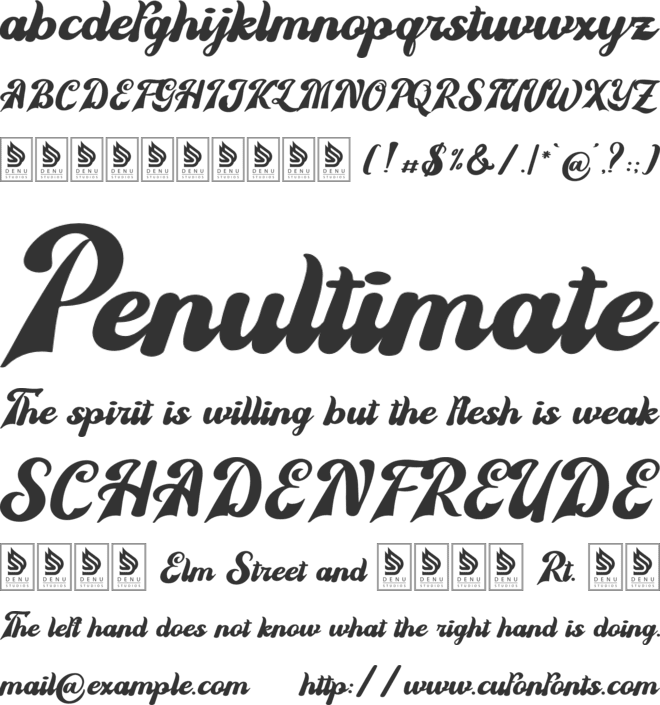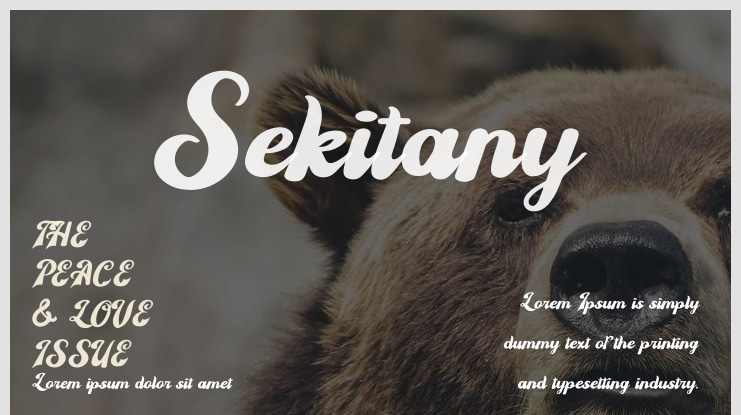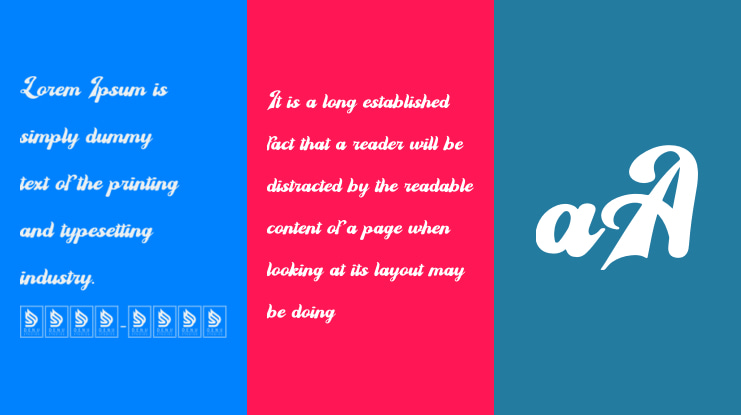
**Sekitany | Retro Script Typeface**
Sekitany is a retro script typeface that is versatile and perfect for a variety of projects. Whether you're working on logos, branding projects, homeware designs, product packaging, mugs, quotes, posters, shopping bags, t-shirts, book covers, name cards, invitation cards, greeting cards, labels, photography, watermarks, or other special events, this typeface adds a touch of retro charm to your work.